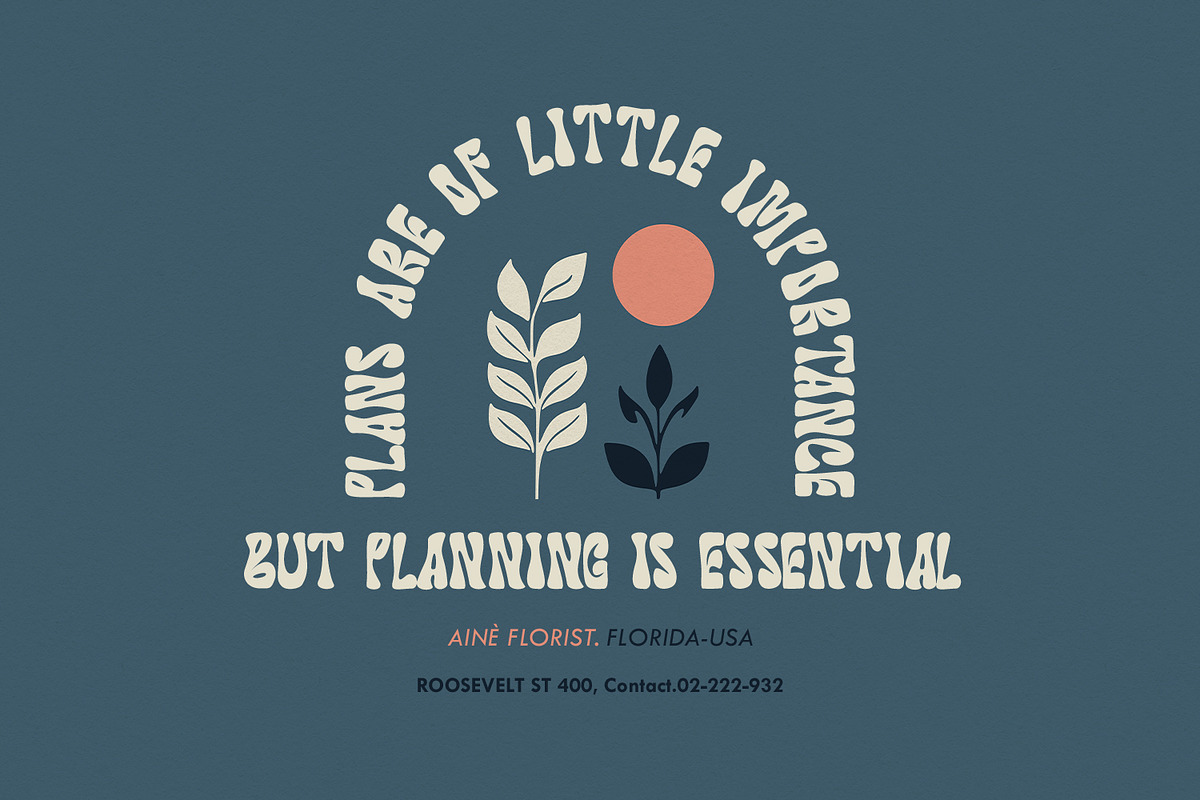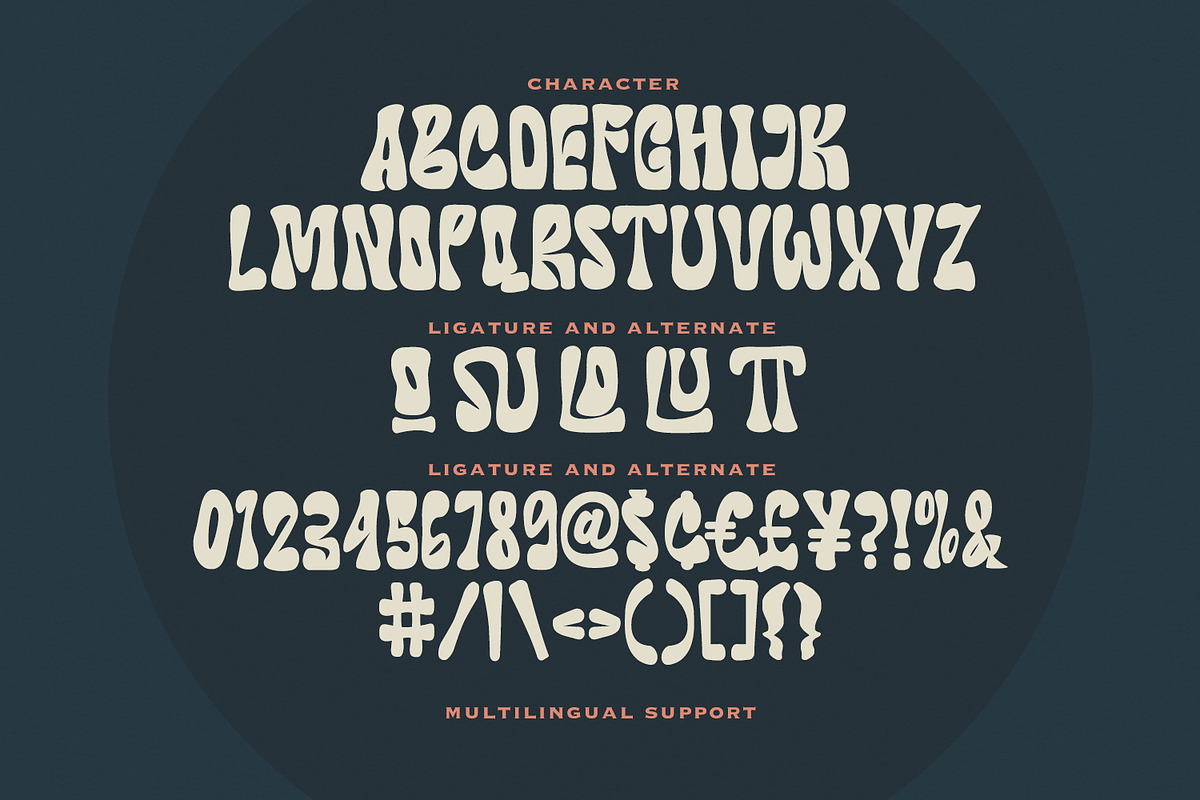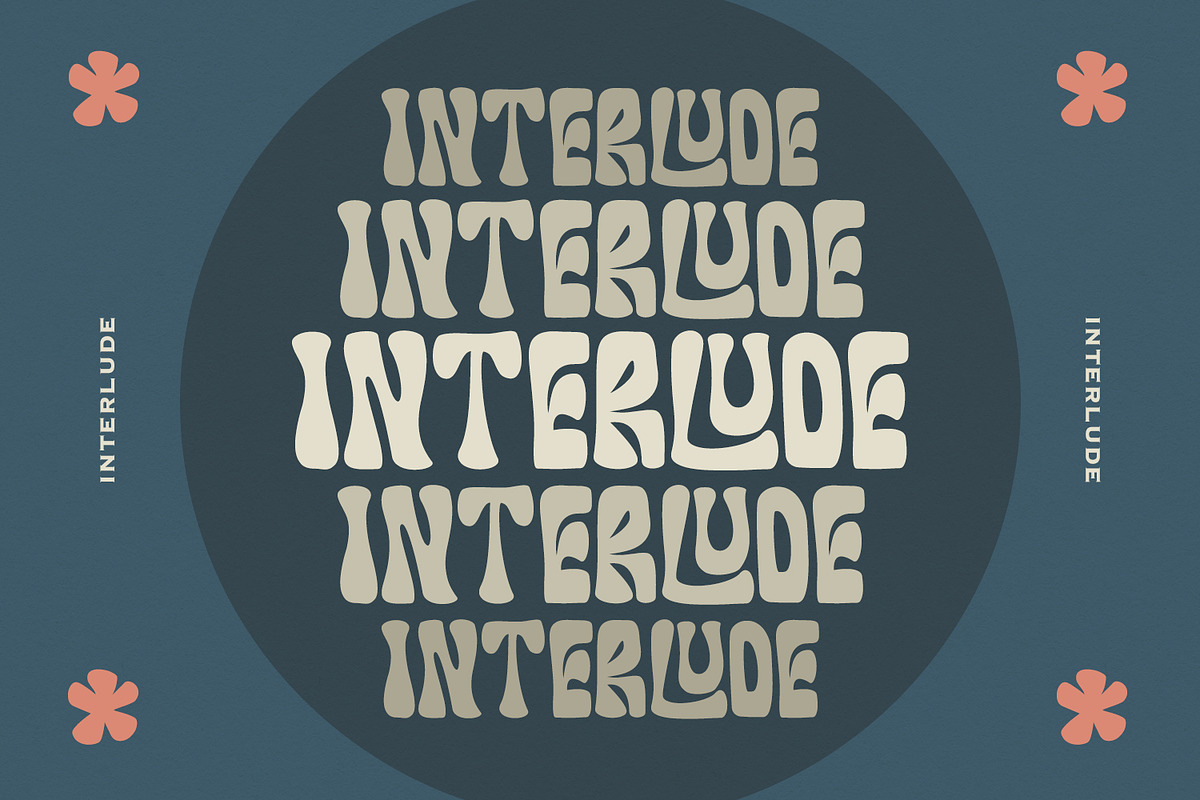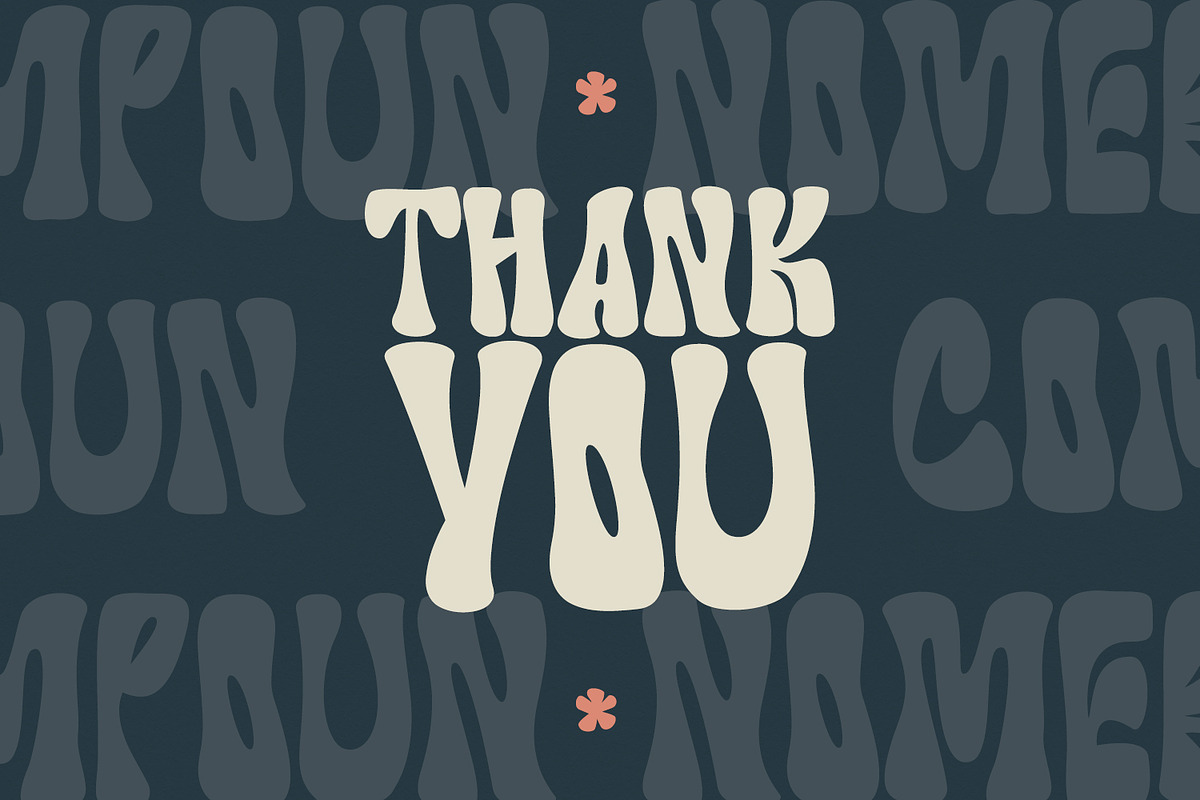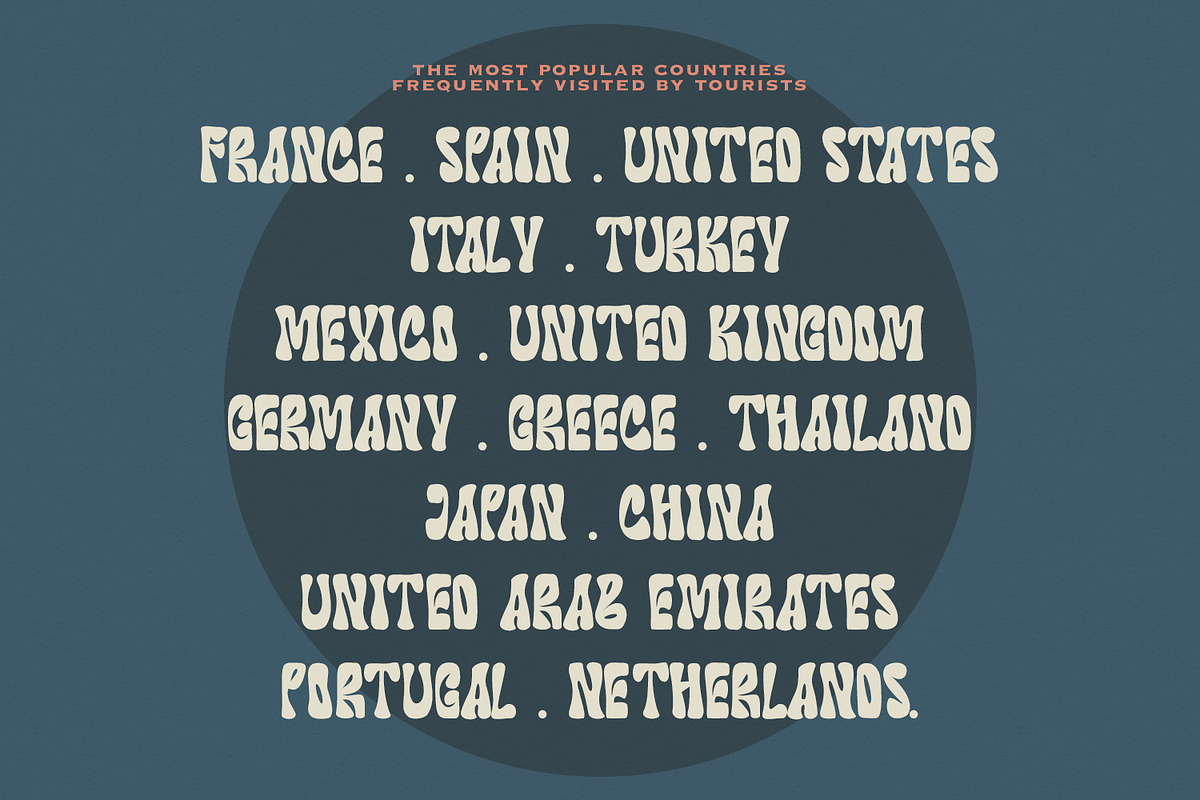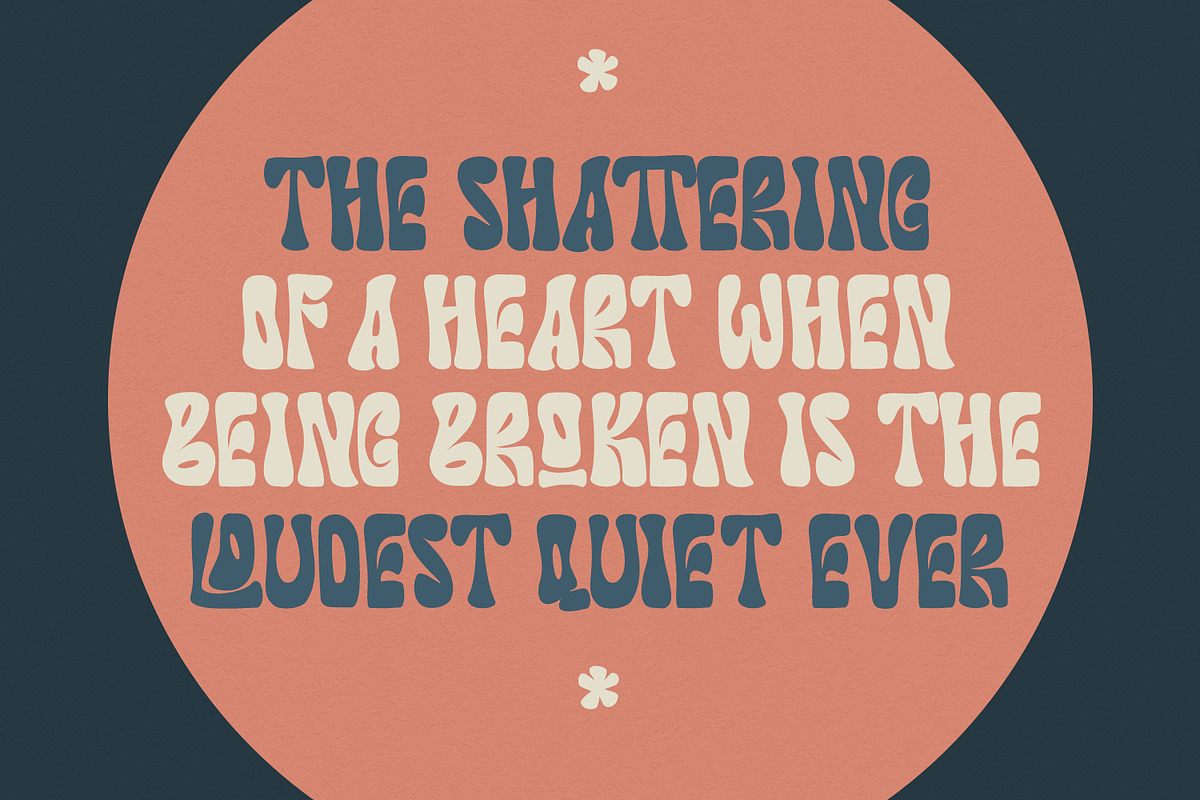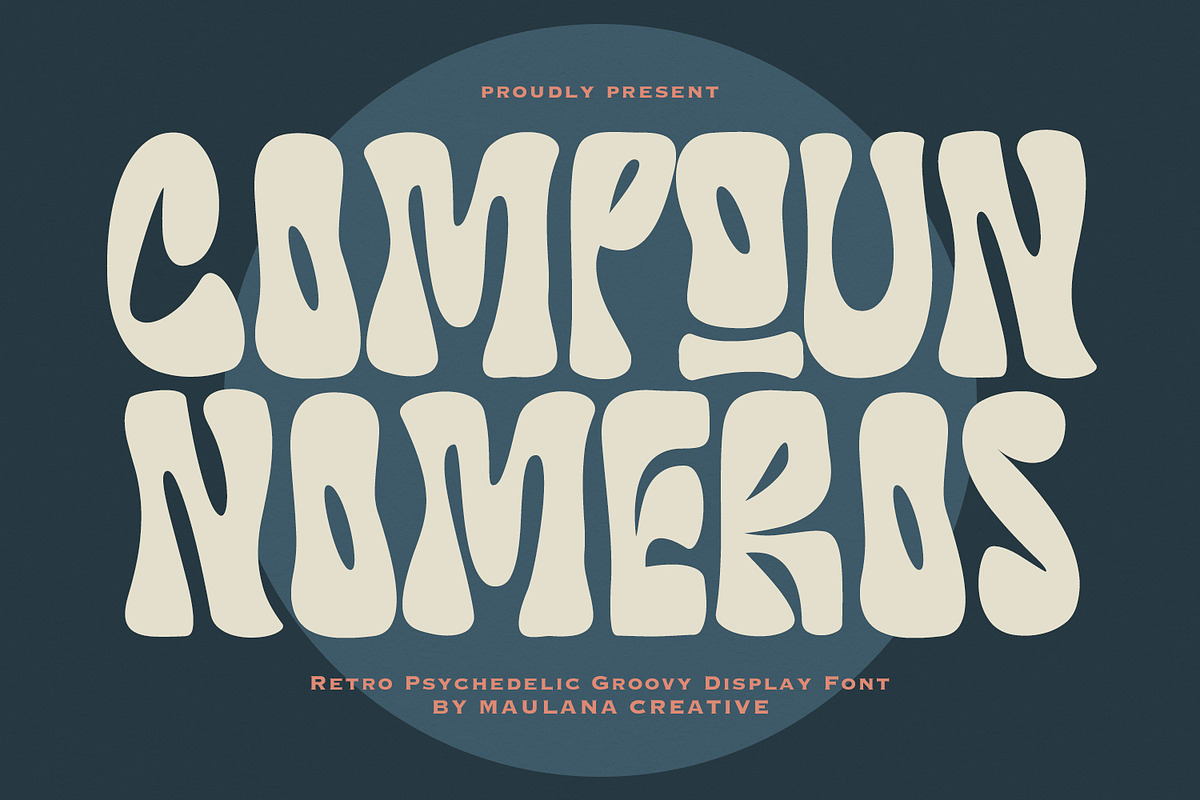
Compoun Nomeros Retro Psychedelic
Compoun Nomeros is a high-energy display font that captures the essence of the psychedelic movement. Featuring liquid-like curves and bold, melting letterforms, this font is designed to make a statement. Whether you are creating a trippy concert media, a vintage inspired brand identity, or eye-catching design, Compoun Nomeros brings that authentic "groovy" vibe to your project.
Equipped with unique ligatures and alternates, this font allows you to customize your typography for a truly organic, hand-drawn look. Its thick, wavy strokes provide excellent readability while maintaining a playful and artistic aesthetic.
- Uppercase Letter
- Special Ligatures & Alternates for a custom look
- Perfect for: Logos, Graphic Designs, Social Media, Branding, and Retro Advertisements.